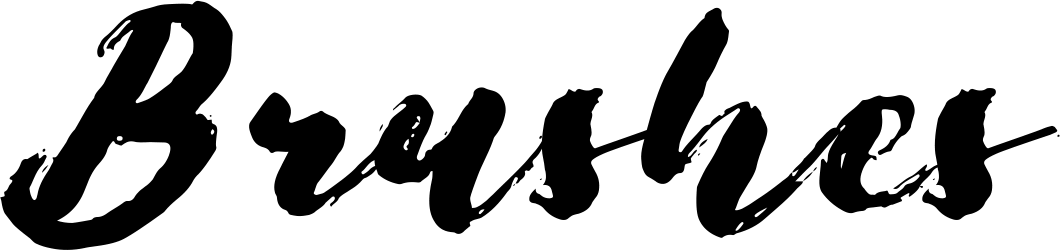
Brushes Font
Adopting the natural texture of brushstrokes, Brushes is meant to add an aesthetic touch to your typography with its cursive style. However, you might want to consider it too as it’s not entirely easy to read before applying it to your artwork.
If you care more for elegance than straightforward communication, this brush font is suitable for loads of designs like websites, logos, social media covers, and books to name a few. So enjoy!